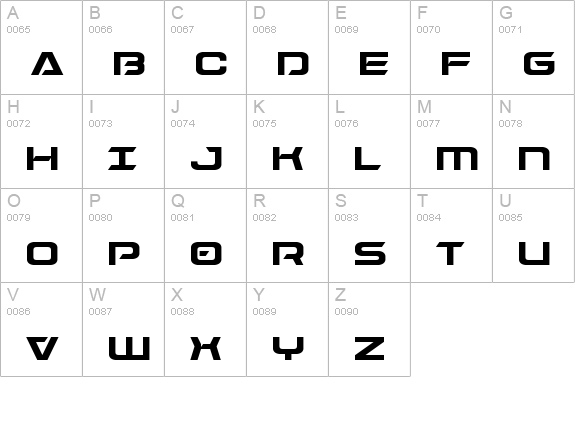
Introducing Dameron font, a sleek and modern typeface that effortlessly combines elegance with simplicity. This versatile font exudes a sense of sophistication and professionalism, making it perfect for a wide range of design projects.
With its clean lines and minimalistic style, Dameron font is ideal for branding, logos, headlines, and more. Its timeless appeal ensures that your designs will always look fresh and contemporary.